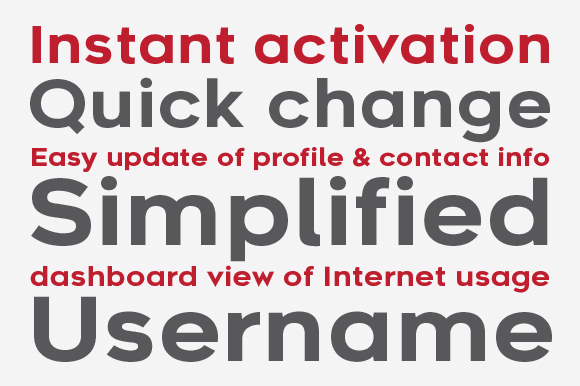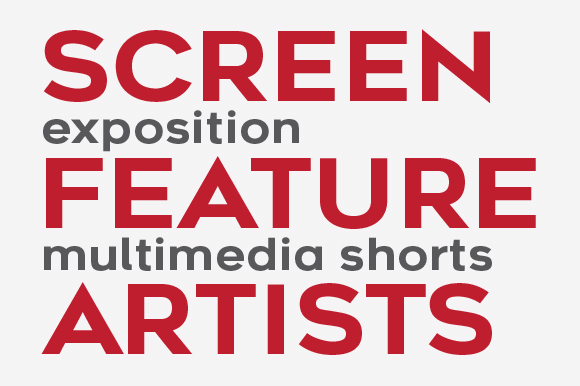
Introduction to Metrosant Font
As a designer, have you ever found yourself stuck in a creative rut, searching for the perfect font to elevate your project? I know I have. One day, while working on a design project, I stumbled upon the Metrosant Font, and it was love at first sight. Its clean lines, bold character, and low contrast design made it the perfect addition to my design resource arsenal.
What drew me to the Metrosant Font was its unique blend of style and functionality. With its transparent background and high-quality design, it’s the perfect font for any creative project that requires a touch of sophistication. And the best part? It’s available for free download, making it an invaluable resource for designers on a budget.
Whether you’re working on a logo design, a website, or a marketing campaign, the Metrosant Font is sure to be a valuable addition to your design toolkit. In this article, we’ll take a closer look at this incredible font and explore its features, benefits, and uses.
Key Features of Metrosant Font
- High-quality design resource for creative projects, ideal for modern and sleek designs
- Transparent background, allowing for seamless integration into various design backgrounds
- Unique, modern design that adds a touch of sophistication to any creative project
Honest Review: Metrosant Font
I recently stumbled upon the Metrosant Font, a free download that caught my eye for its unique design. As a designer, I’m always on the lookout for high quality design resources that can elevate my creative projects.
- ✨ Unique and modern aesthetic: The Metrosant Font has a sleek and modern feel to it, making it perfect for contemporary designs.
- ⚠️ Limited character set: The font only includes a limited character set, which might not be suitable for extensive text-based projects.
- ⚠️ Not ideal for small text: Due to its modern aesthetic, the font might not be the best choice for small text sizes.
Overall, the Metrosant Font is a solid addition to any designer’s library. While it may have some limitations, its unique design and free download make it a worthwhile resource for any creative project.
The Metrosant Font is a high-quality design resource that offers a clean and modern aesthetic, perfect for any creative project. With its transparent background, it can be easily applied to various design elements, from typography to graphics.
The Metrosant Font is suitable for a variety of design projects, including:
Brochures and flyers
Business cards and letterheads
Website headers and footers
Infographics and data visualizations
Alternatives to Metrosant Font
Comparison to Metrosant Font: Oswald has a more geometric and modern feel compared to Metrosant Font, which has a more vintage and distressed look. Oswald is also more versatile and can be used in a wider range of design contexts.